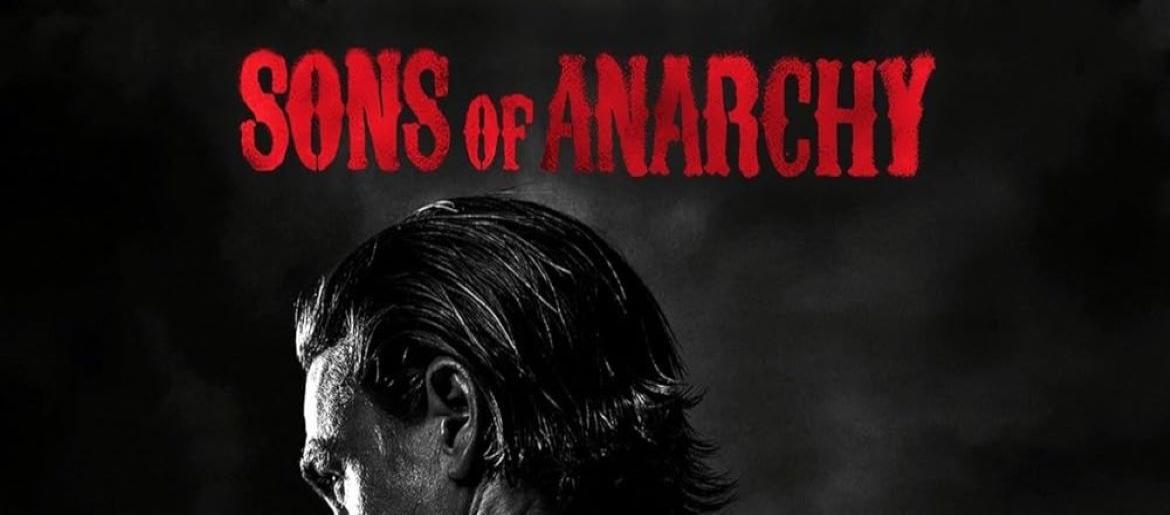
Sons of Anarchy Font
The Sons of Anarchy Font embodies the raw, rebellious energy of the hit motorcycle drama. Based on Carnivalee Freakshow, a distressed serif typeface designed by Christopher Hansen, its bold, uneven edges and rugged texture instantly convey a sense of outlaw grit. The font feels hand-crafted, like graffiti or a leather jacket emblem, perfectly reflecting the chaotic, dangerous world of the Sons of Anarchy club.